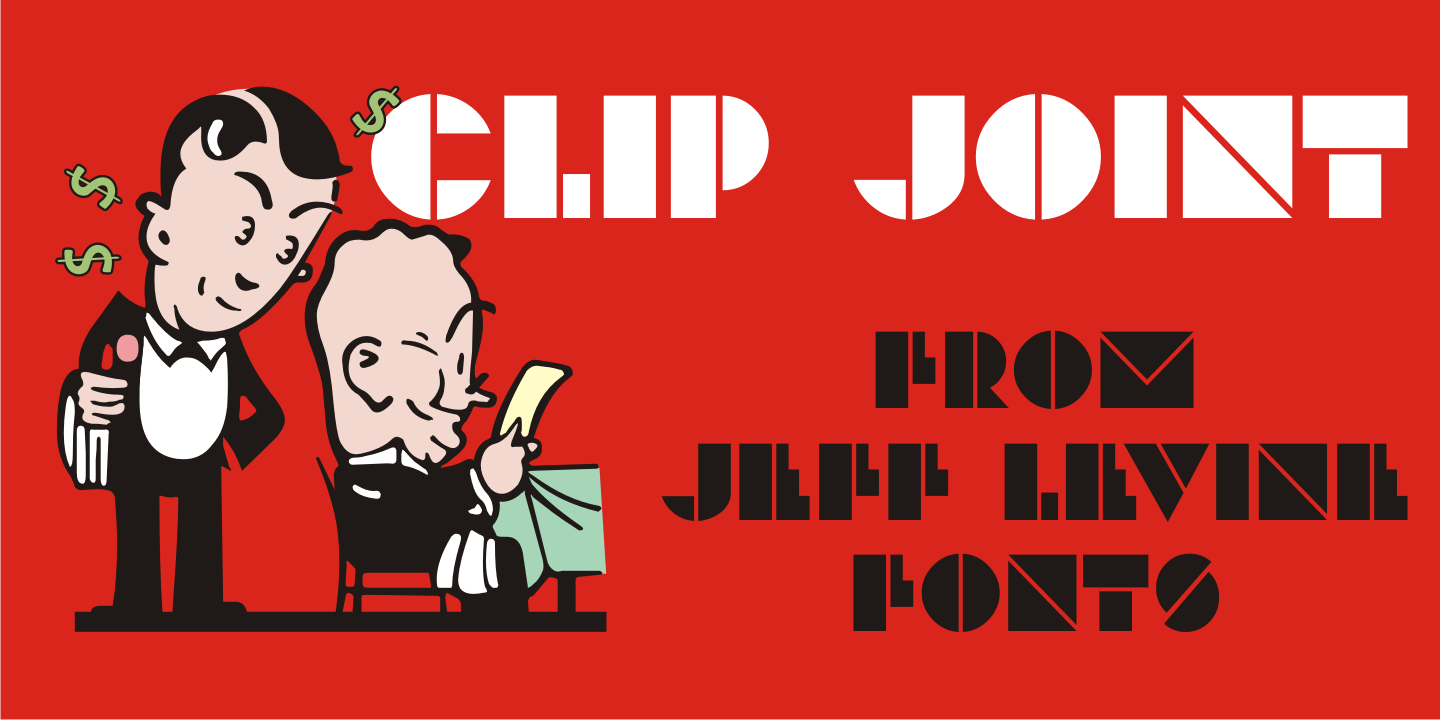
Clip Joint
According to Wikipedia, a 'clip joint' '…is an establishment, usually a strip club or night club (often claiming to offer adult entertainment or bottle service) in which customers are tricked into paying excessive amounts of money, for surprisingly low-grade goods or services—or sometimes, nothing—in return.” These establishments were rampant during the prohibition years.
However, the inspiration for Clip Joint JNL comes from a more positive source – a WPA (Works Progress Administration) poster advertising 'The Lure of the National Parks”.
A bold classic Art Deco design, it typifies the modern and streamlined approach to lettering in the 1930s and 1940s.